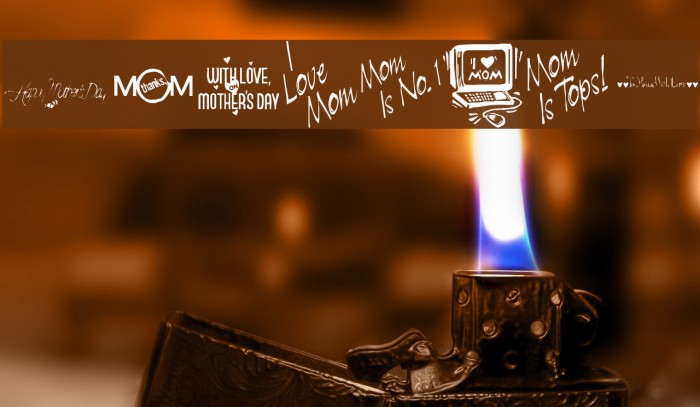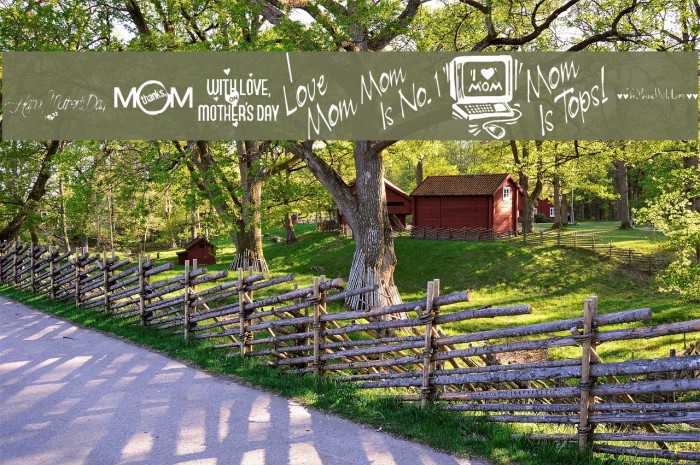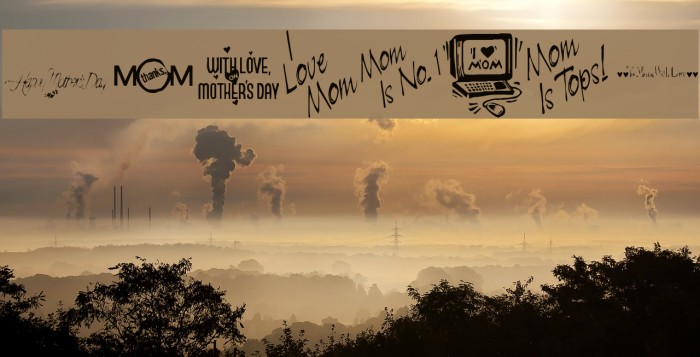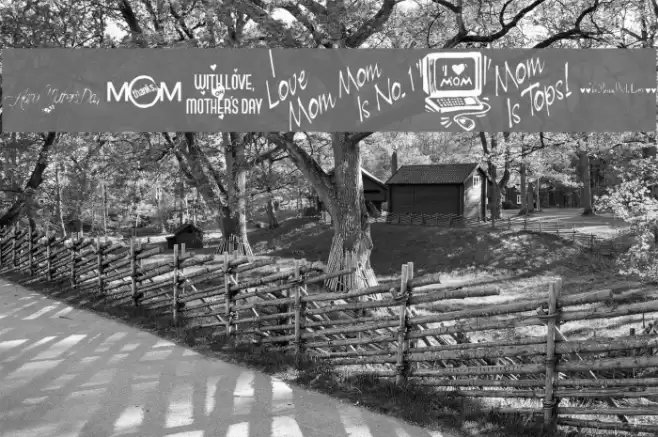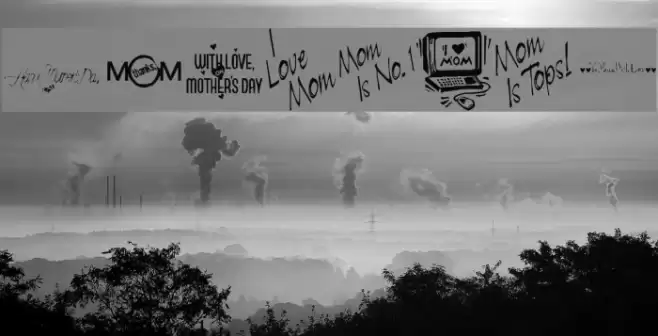
KR Mother's Day Dings Font
This is a decorative font featuring playful and thematic illustrations related to Mother's Day. Each character is represented by a unique graphic, such as hearts, flowers, and celebratory messages, making it ideal for festive and creative projects. The font captures a whimsical and affectionate style, perfect for adding a personal touch to cards, invitations, and crafts. Its design is not suited for traditional text but rather for embellishing and enhancing visual projects with a Mother's Day theme.
A decorative font with Mother's Day-themed illustrations.
- Proposed Projects: Ideal for Mother's Day cards, invitations, scrapbooking, and festive decorations.
- Use Case: Logos, Headlines, Decorative elements